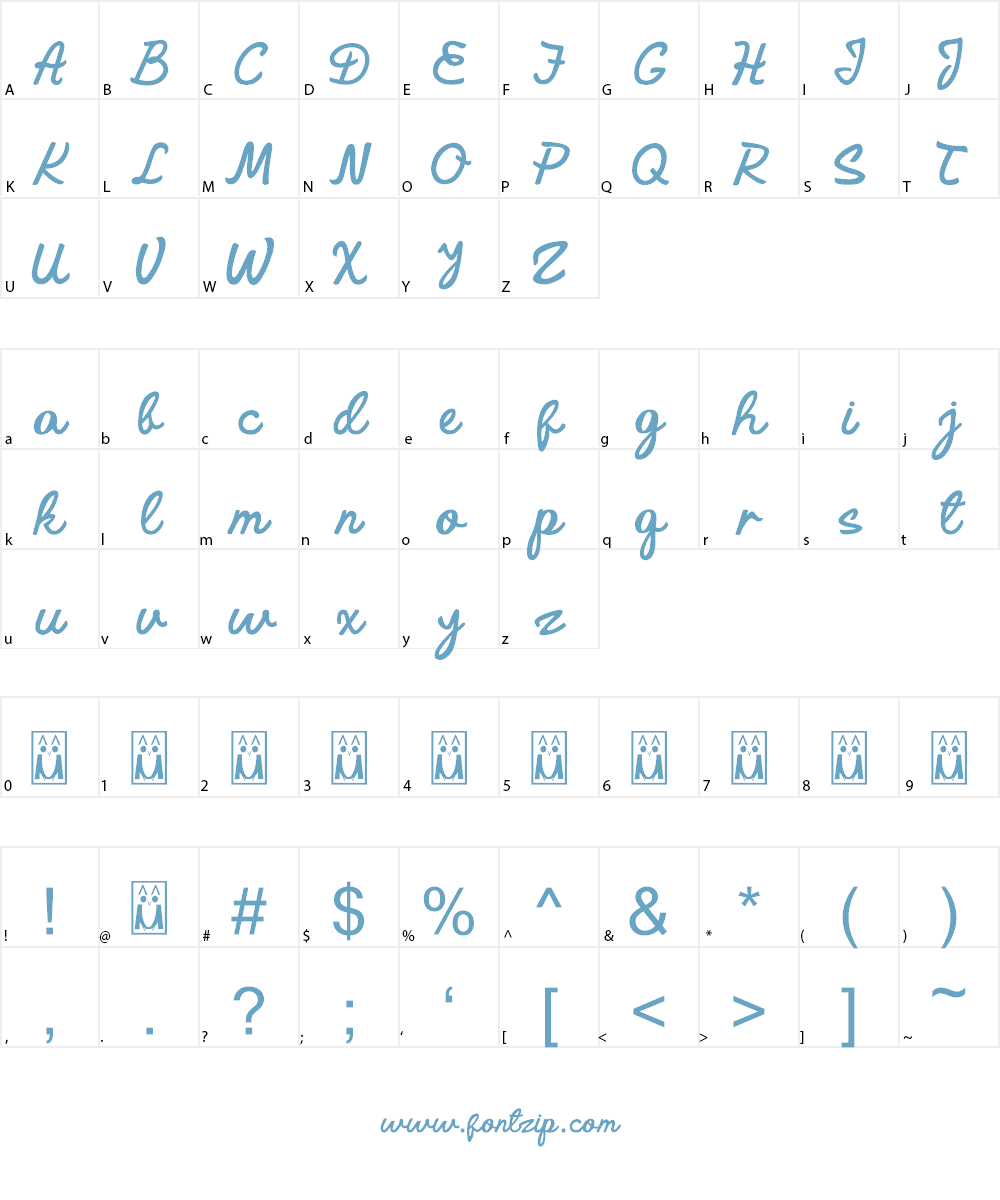
This font is partial.
The complete version include 4 types of Swashes with 7 sizes for each...Also include bonus DINGBAT: 4 Elements.
Is suitable for many types of projects such as logos, posters, apparel printing, labels, quotes,headlines and more.